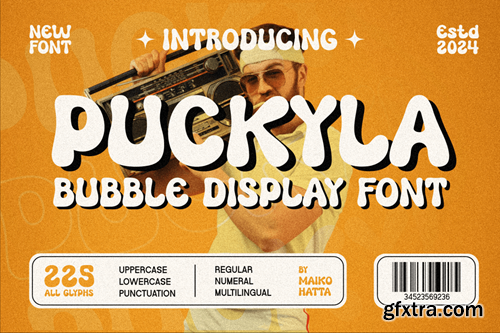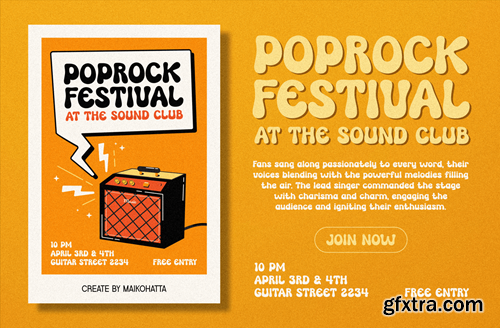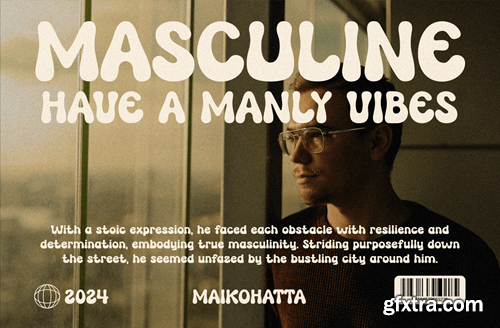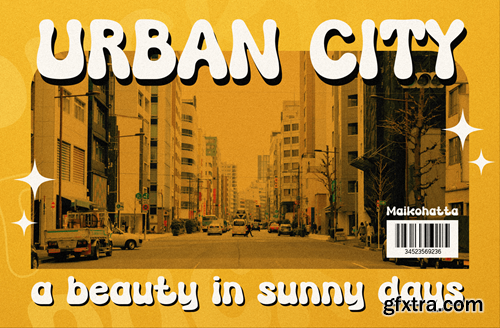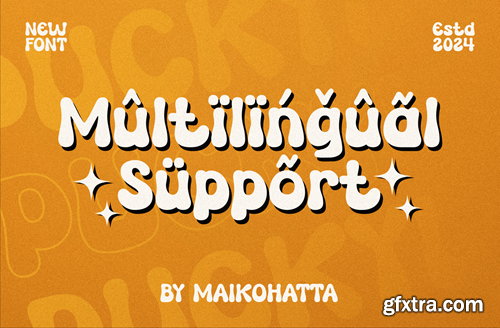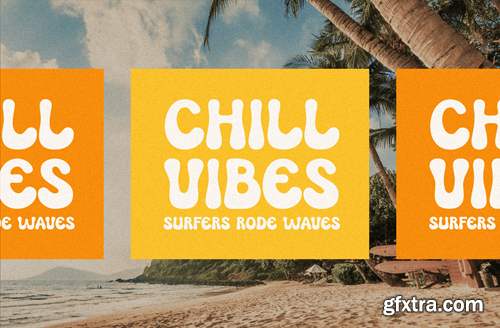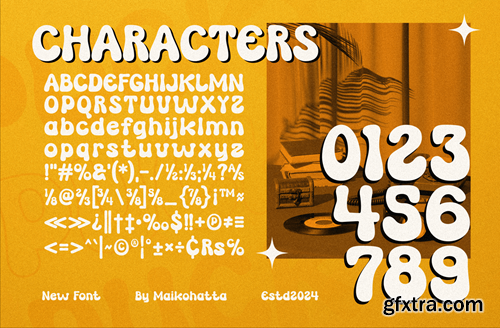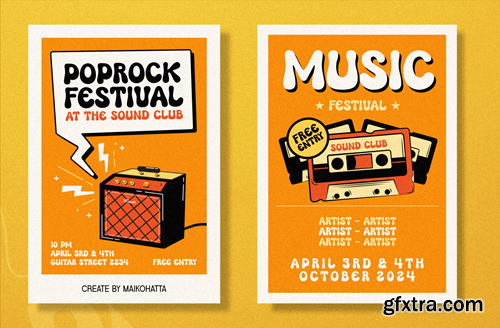
Puckyla - 胶囊体显示字体 G5REHKB
Puckyla - Bubble Display Font
Introducing our new product Puckyla - Bubble Display Font This font has round and wide letter shapes with curved corners, giving a soft and friendly impression. Because of this, this font is often chosen for designs aimed at children or those with a playful nature, as it conveys a more youthful and cheerful feel. availlable